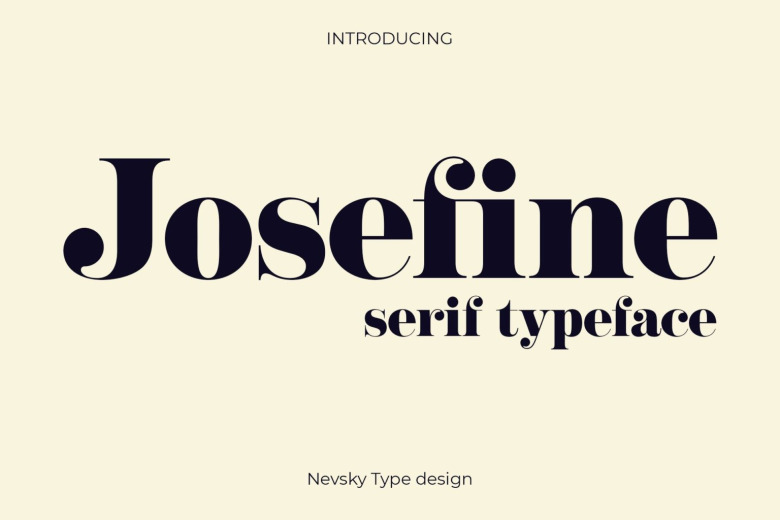
NT Josefine Font
NT Josefine is a stylish font that is both retro and bold font. Made from font designer named nevsky type. It’s a new serif typeface will perfect for many project: invitations, postcard, poster, book, advertisements, websites, blog header, logo, branding, magazines, fashion, photography, etc.